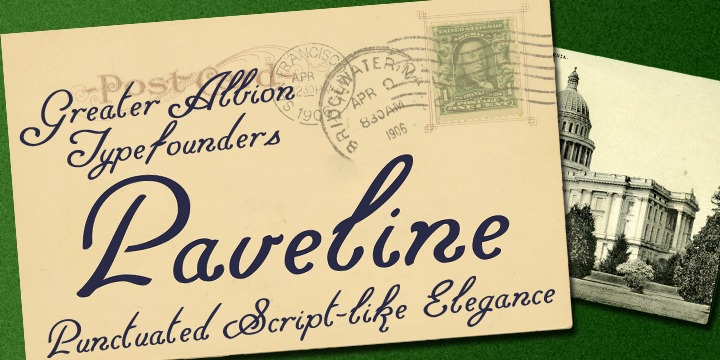
Paveline is a punctuated script; by which we mean it has the look and character of handwriting, but the glyphs are discrete entities to aid legibility.
It is actually based on a moderately stylized adaptation of our chief designer’s handwriting.
Use it to give a handwritten touch to your work. Paveline works well as small handwriting or large scale poster captions.